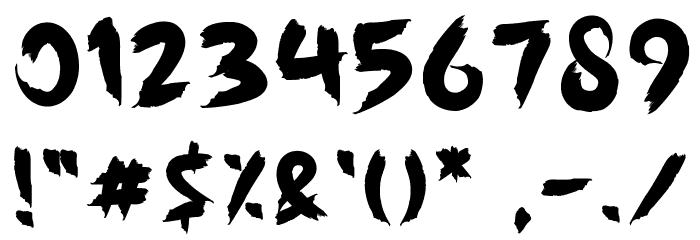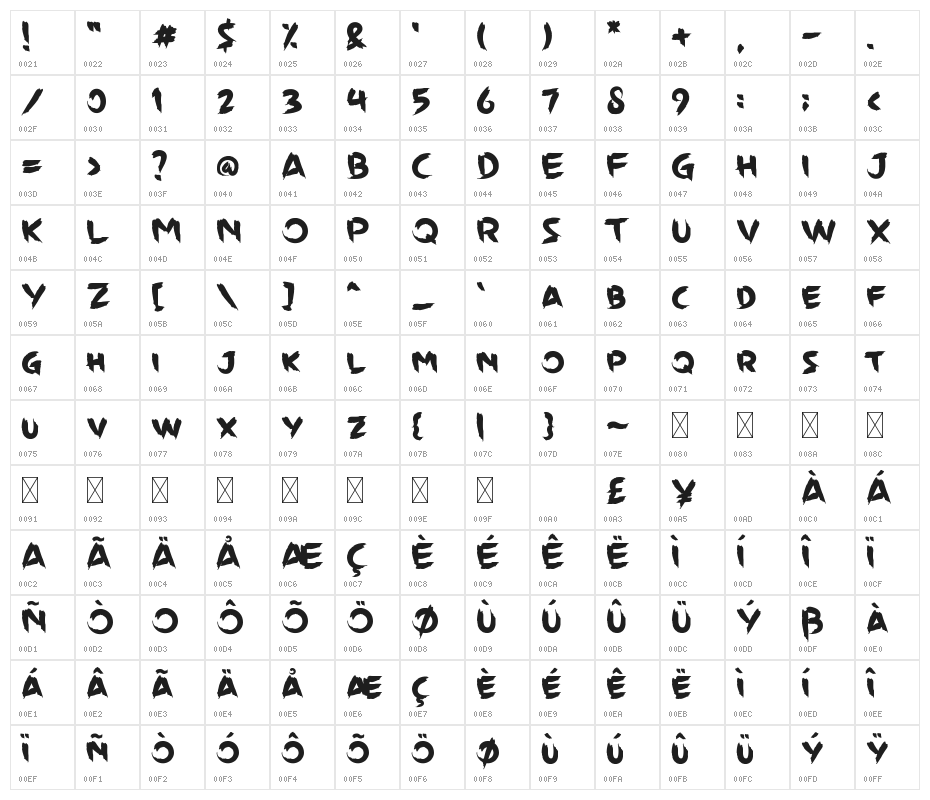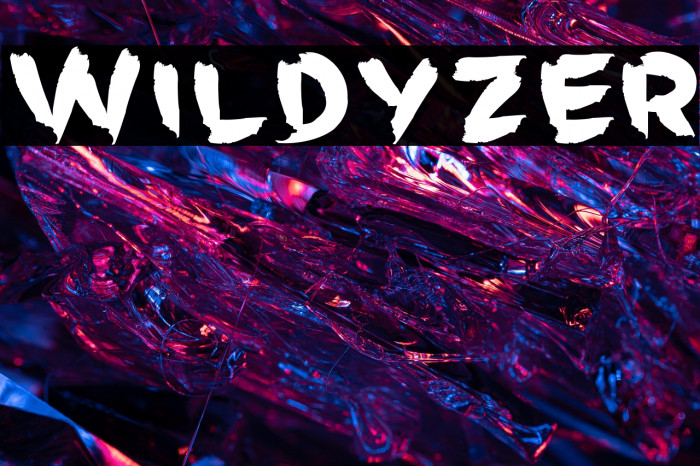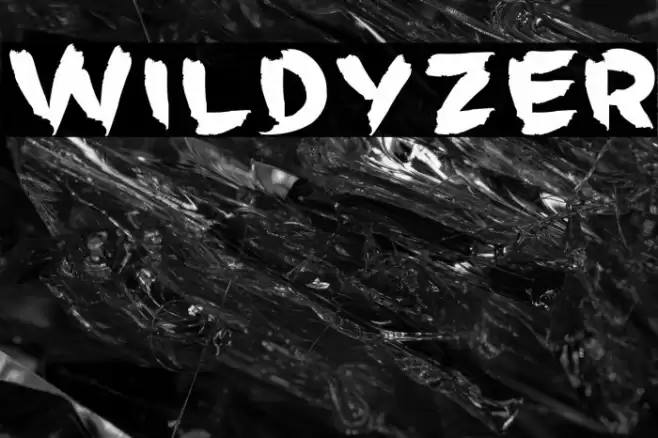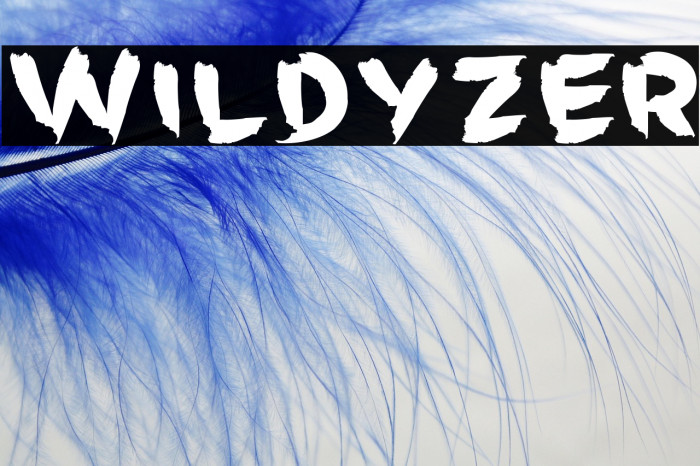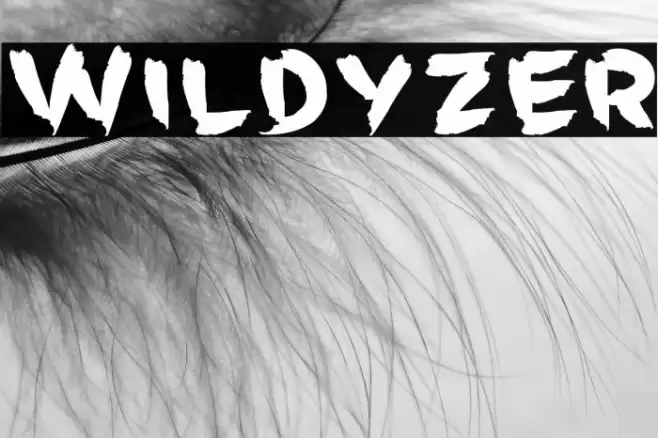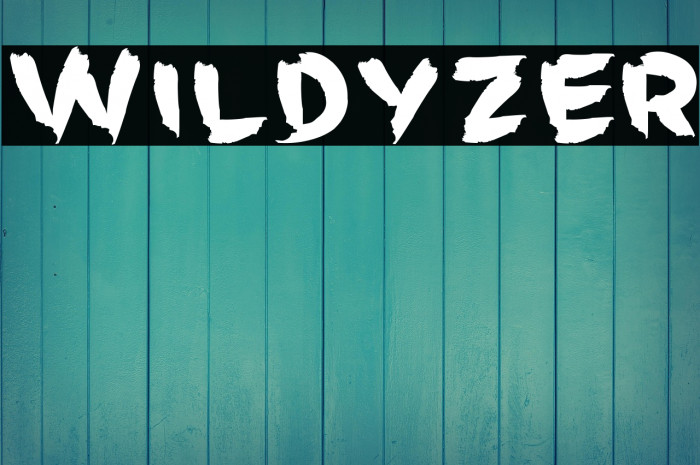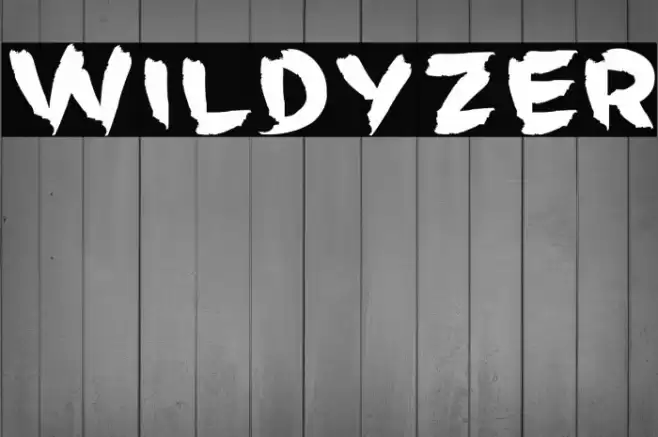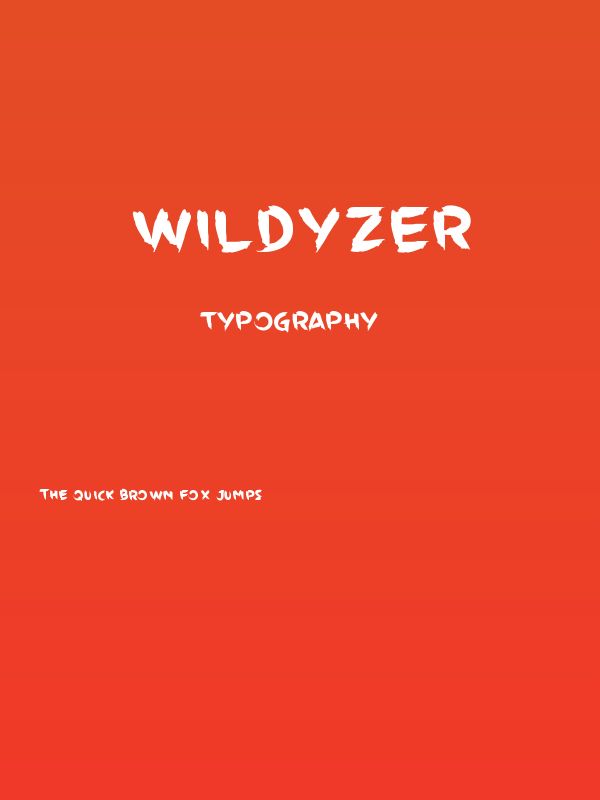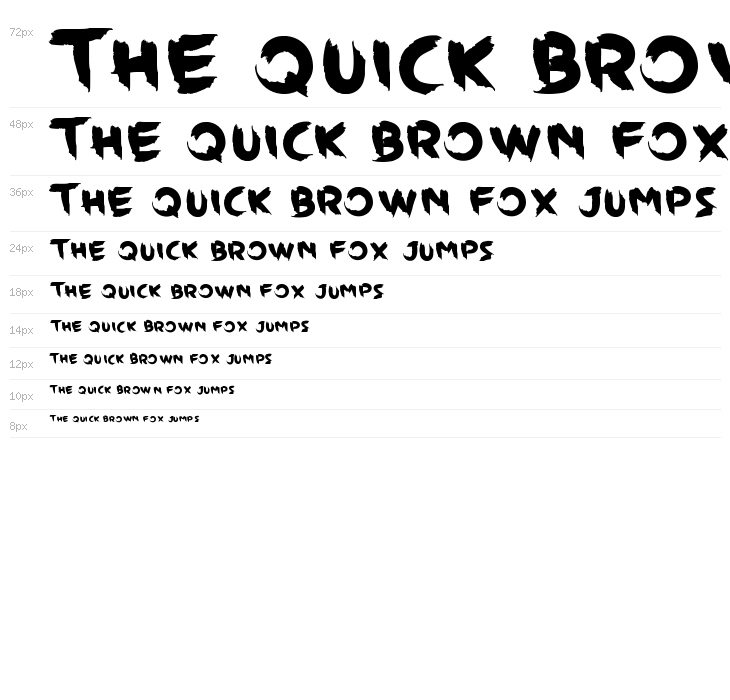
Wildyzer Font
Wildyzer Description
This font exhibits a bold and dynamic brushstroke style, characterized by its jagged and energetic appearance. The letters are crafted with a sense of movement, giving them a wild and untamed look. The uppercase and lowercase letters maintain a consistent style, with sharp edges and varying stroke widths that add to the font's expressive nature. Numbers and special characters follow the same design principles, ensuring a cohesive visual experience. The overall aesthetic is both aggressive and artistic, making it suitable for projects that require a strong visual impact.
| Proposed Projects | Ideal for posters, album covers, branding for edgy products, and any design needing a bold statement. |